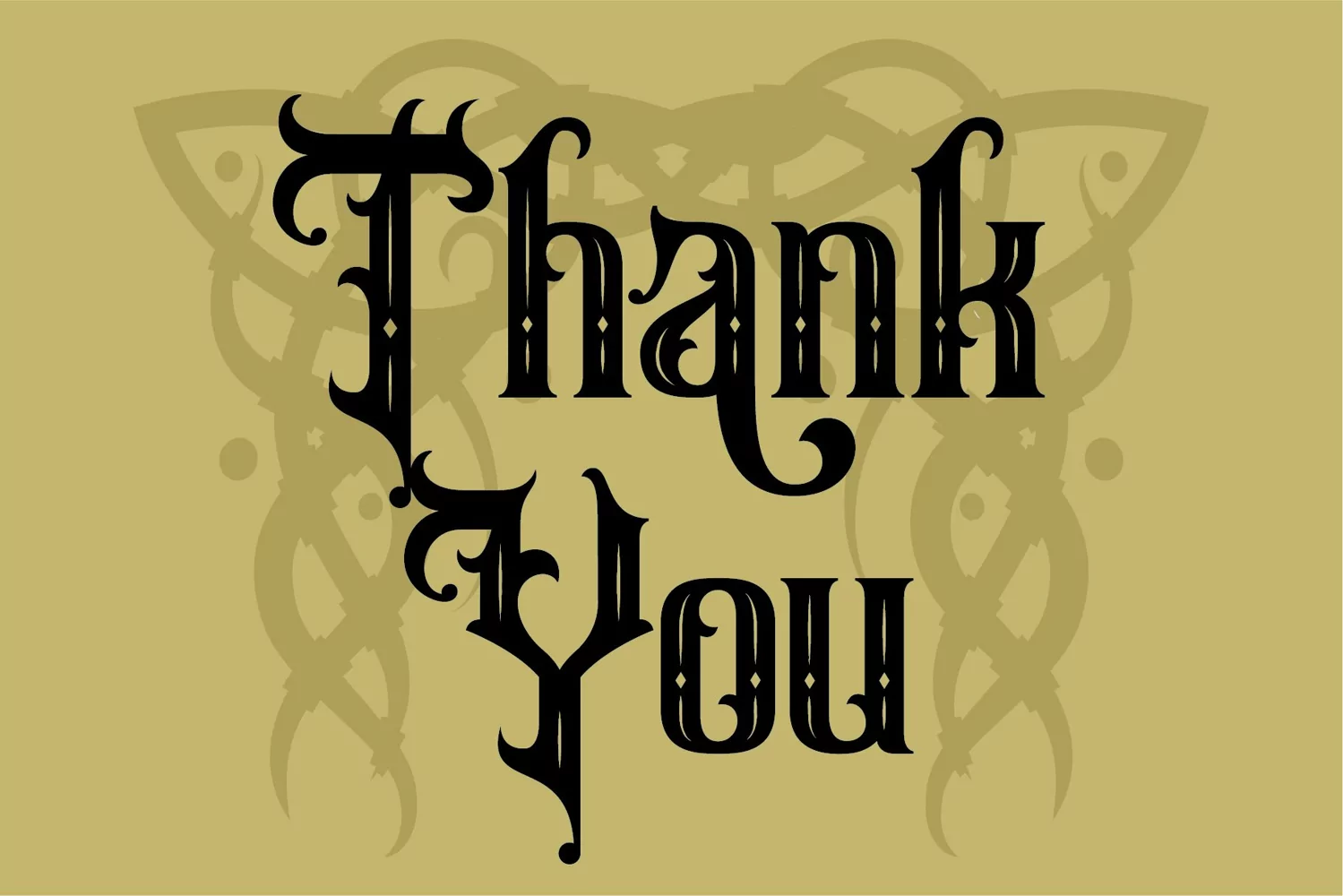
Korgen Asher - Vintage Font
If you looking for strong font for display or title this item is a great choice to make your design authentic.
Korgen Asher font has 199 character glyphs included the multilingual and alternate glyphs, the alternate glyphs will make your design more decorative.